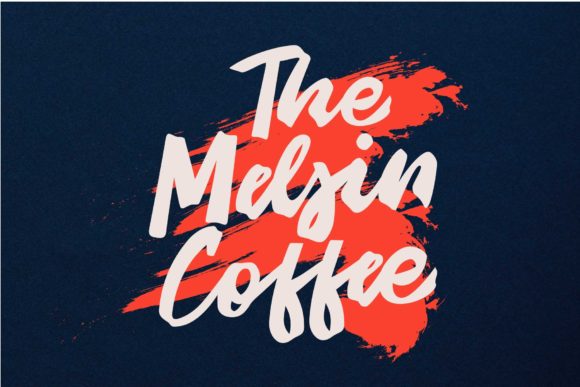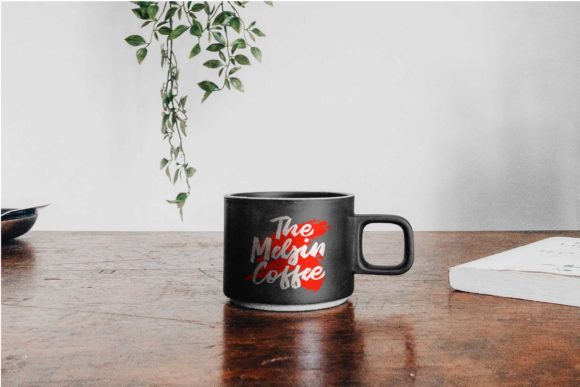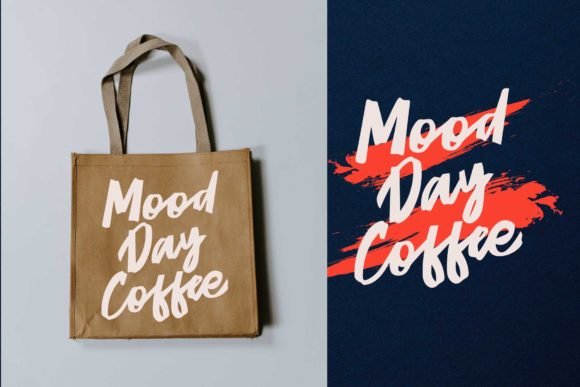
Introduction to Melsin Font
Melsin is a modern and thick lettered handwritten font.
This original look will appeal to a wide range of crafty ideas, from letterheads and titles, to stationery .
Melsin Font offers exceptional quality and versatility, making it a valuable addition to your design toolkit. Whether you’re creating for personal projects or commercial use, Melsin Font delivers professional results.